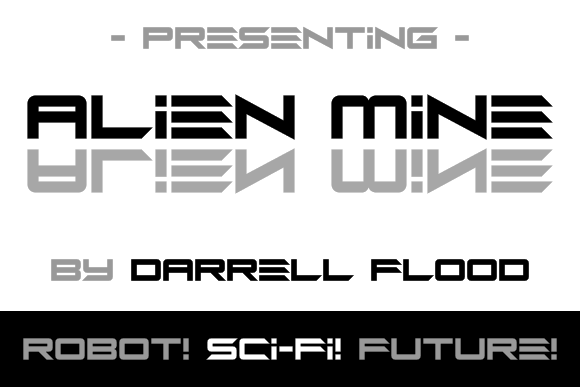
Unleash the Futuristic Vibes with Alien Mine Font
In the realm of typography, fonts play a pivotal role in conveying the essence and aesthetic of a design project. Whether you’re crafting a logo, creating a sci-fi movie poster, or designing futuristic-themed merchandise, the right font can elevate your work from ordinary to extraordinary. This is where the Alien Mine Font comes into play, a futuristic, sci-fi font that embodies a sharp, angular style, perfect for designers and crafters looking to infuse their projects with a dose of otherworldliness.
Characteristics of Alien Mine Font
Alien Mine Font is distinguished by its sharp, angular design, which gives it a futuristic and somewhat edgy appearance. This font is meticulously crafted to bring a sense of innovation and cutting-edge technology to your designs. Its features include:
- Sharp Lines and Angles: The font’s design is characterized by sharp lines and angles, providing it with a futuristic feel that’s hard to miss.
- Sci-Fi Aesthetic: Perfectly suited for sci-fi projects, the font captures the essence of space-age technology and futuristic worlds.
- Versatility: Despite its specific sci-fi and futuristic appeal, Alien Mine Font can be surprisingly versatile, suitable for various design projects from posters and logos to digital interfaces.
Uses of Alien Mine Font
The Alien Mine Font’s unique characteristics make it an excellent choice for a wide range of applications. Here are some of the most popular uses:
- Movie and Game Posters: Add a touch of authenticity to your sci-fi movie or video game posters with a font that screams futuristic.
- Logo Design: Create memorable and impactful logos for tech startups, sci-fi themed restaurants, or any business looking to emphasize innovation and forward-thinking.
- Merchandise: From t-shirts to gadgets, Alien Mine Font can help you create eye-catching designs that stand out.
- Digital Content: Enhance your digital content, such as website headers, social media graphics, and digital art, with a futuristic touch.
Tips for Using Alien Mine Font
To maximize the impact of Alien Mine Font in your designs, consider the following tips:
- Pair with Complementary Fonts: When combining Alien Mine Font with other fonts, choose those that complement its futuristic and sharp style. Simple, clean fonts can provide a nice contrast.
- Experiment with Colors: While Alien Mine Font can look striking in metallic or neon colors, don’t be afraid to experiment with different color schemes to match your project’s theme.
- Consider the Context: Ensure that the font aligns with the overall theme and message of your project. The Alien Mine Font’s strong sci-fi element might not suit all types of designs.
Alien Mine Font, with its sharp, angular design and futuristic appeal, is a valuable addition to any designer’s toolkit. Whether you’re working on a sci-fi project, a tech startup’s branding, or simply looking to add a futuristic touch to your designs, this font can help you achieve your creative vision. By understanding its characteristics, uses, and how to effectively incorporate it into your work, you can unlock new possibilities in your design endeavors.